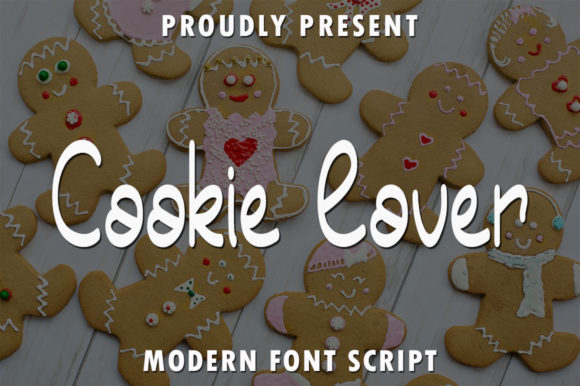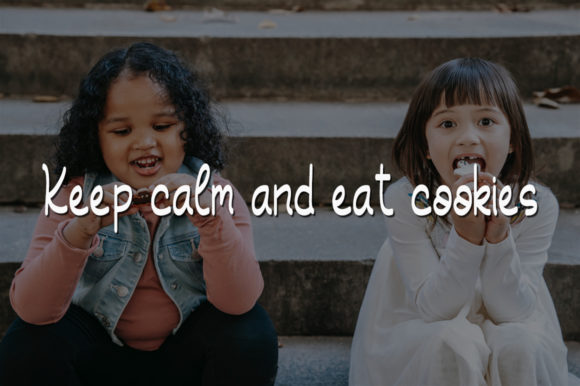
About Cookie Lover Font
Cookie Lover is a charming and playful handwritten font that brings a delightful and fun touch to your designs. With its cute and whimsical letterforms, this font is perfect for adding a touch of joy and sweetness to your creative projects.
The font’s simplicity and ease of use make it a versatile choice for various craft designs. Whether you’re creating greeting cards, scrapbooks, labels, or other DIY projects, Cookie Lover will add a playful and creative element to your designs. Its handwritten style gives it an authentic and personalized feel, making it suitable for adding a personal touch to your crafts.
Cookie Lover’s friendly and approachable appearance makes it well-suited for designs targeting a younger audience or projects that aim to evoke a sense of childlike wonder. It can be used for creating cute invitations, party decorations, children’s book illustrations, or any design that requires a lighthearted and fun vibe.
When using Cookie Lover, feel free to mix it with other design elements and embellishments to enhance its charm. Experiment with different colors, textures, and layouts to create visually appealing compositions. The font’s simplicity allows it to complement other graphic elements without overpowering them, making it easy to incorporate into your craft designs.
Overall, Cookie Lover is a cute and fun handwritten font that adds a touch of playfulness and whimsy to your various craft designs. Its simplicity and versatility make it a great choice for adding a delightful element to your creative projects. Let your imagination run wild and have fun exploring the possibilities with Cookie Lover!